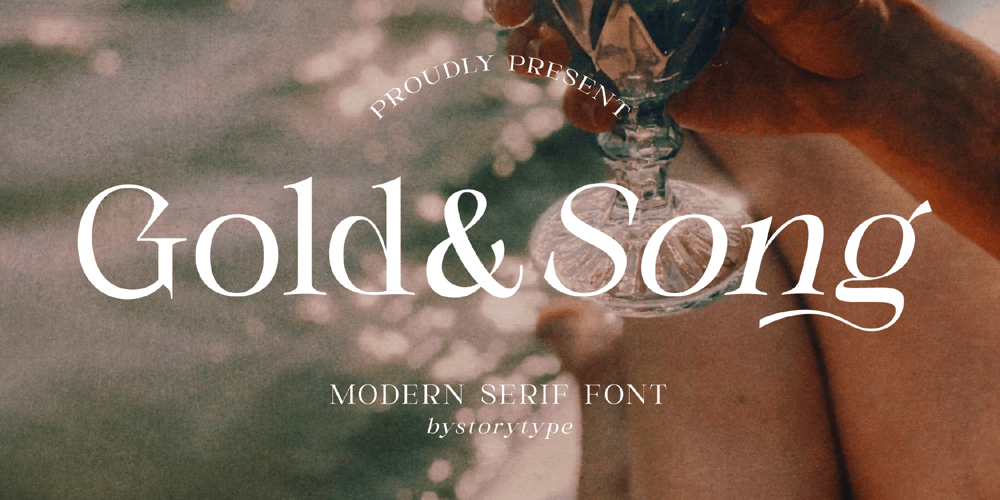
Gold&Song Font Family was designed by Heru Utama Putra and published by Letterena Studios. Gold&Song contains 2 styles and family package options. Gold&Song is a modern and classic serif font that has its own unique style. This typeface is perfect for luxury logos, books, fashion brands, magazines, apparel, quotes, and so much more.